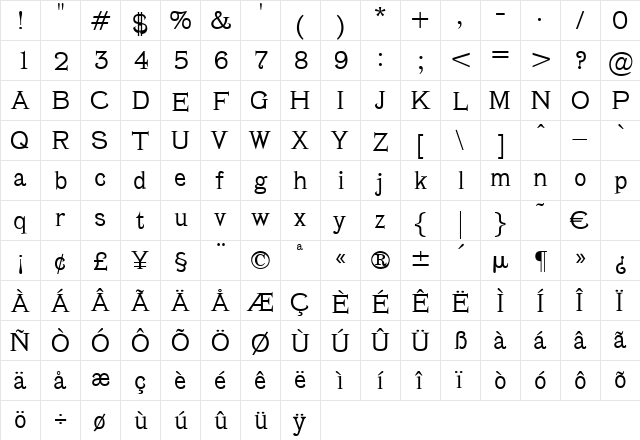
Cleveland Regular Font Preview
Cleveland Regular
Cleveland Regular Font Details
Design Context for Cleveland Typeface
Cleveland is a composed and adaptable typeface that performs quietly and consistently across a wide range of design contexts.